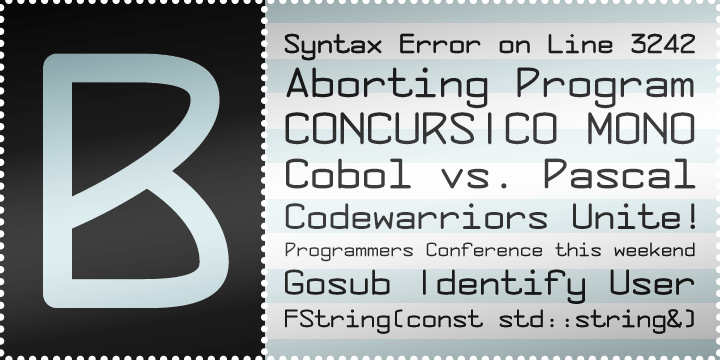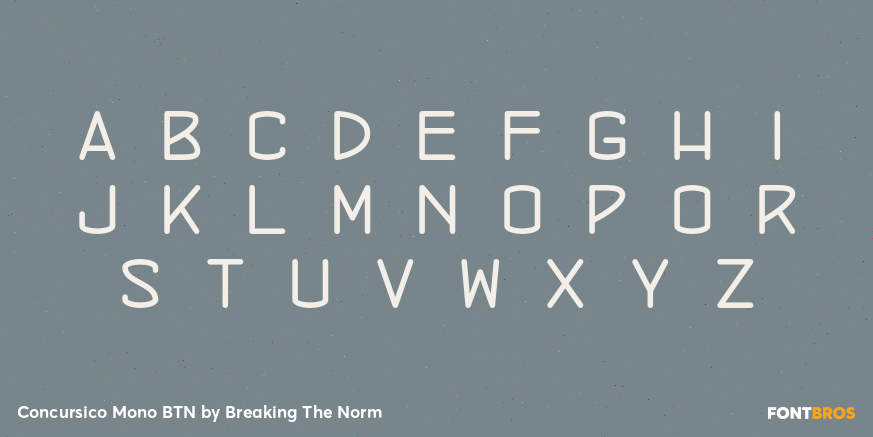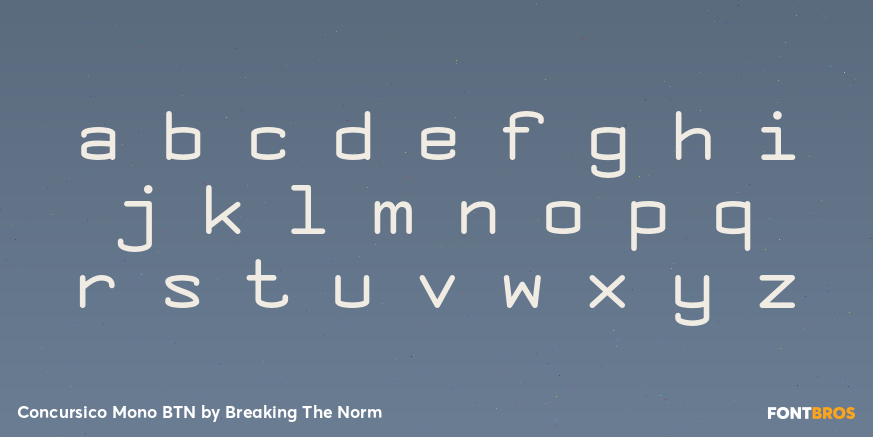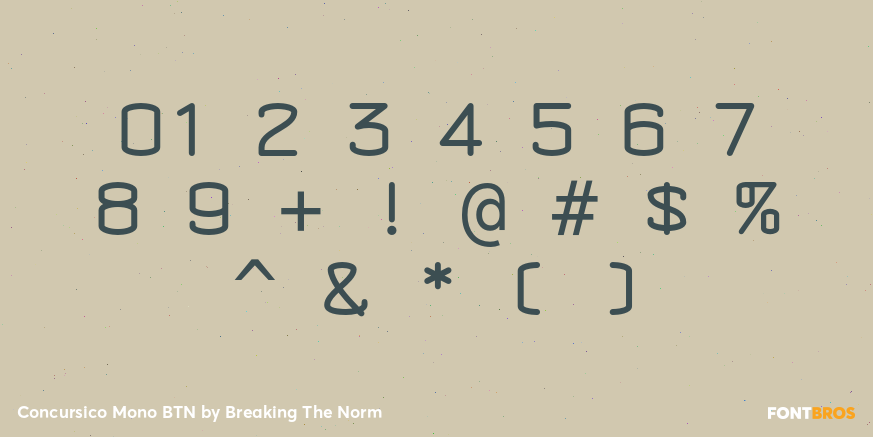
Concursico Mono BTN
Font Family by Breaking The Norm
Concursico Mono BTN is a monospaced display typeface with a distinctive retro-technical character. Its fixed-width structure gives it a mechanical rhythm, while its stylized letterforms add personality beyond a standard utility monospace. The result is a typeface that feels structured, unusual, and visually engaging, making it well suited for posters, branding, editorial design, packaging, labels, album art, and projects that call for a quirky technical or typewritten voice. Concursico Mono BTN brings together order and character in a way that feels both functional and offbeat.